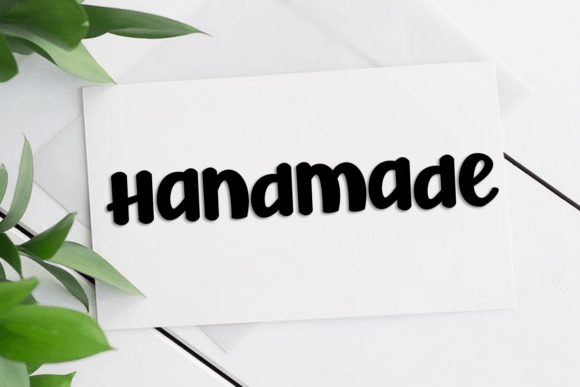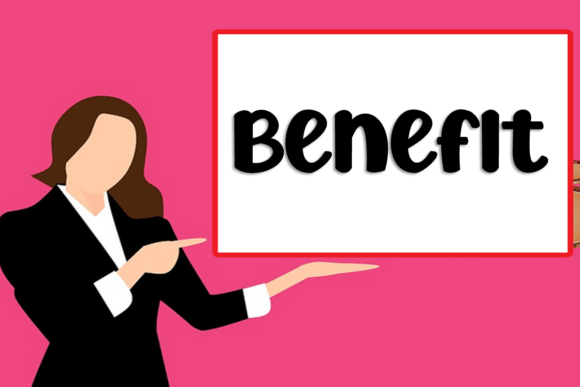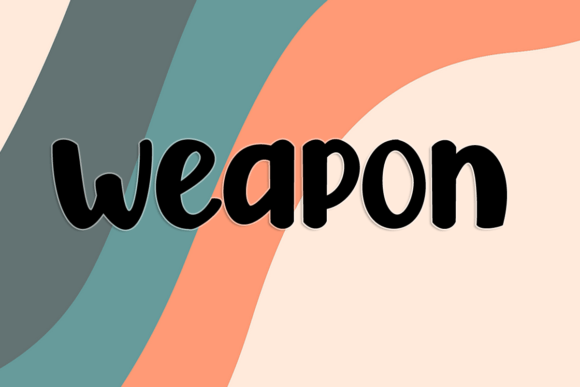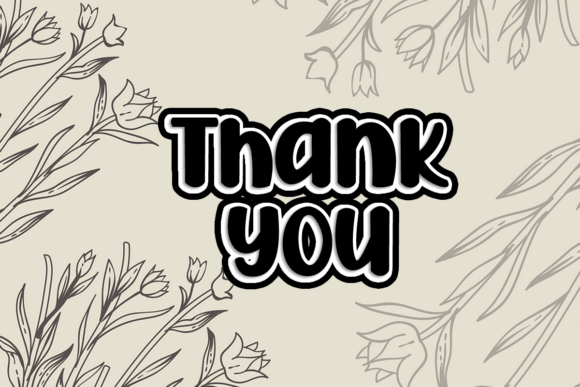
Introducing Happy Morning Font: The Perfect Addition to Your Design Arsenal
Are you tired of using the same old fonts for your projects? Do you want to add a touch of personality and whimsy to your designs? Look no further than Happy Morning Font, a fun and friendly handwritten font that’s perfect for crafters and designers alike. With its incredibly distinct and timeless style, Happy Morning Font is sure to fall into your heart and become a staple in your design toolkit.
The Story Behind Happy Morning Font
Happy Morning Font is a carefully crafted handwritten font that’s designed to bring a smile to your face. Its creator, [font designer name], aimed to create a font that’s both playful and elegant, making it perfect for a wide range of projects, from creative crafts to digital designs. With Happy Morning Font, you can add a personal touch to your work and make it stand out from the crowd.
What Makes Happy Morning Font So Special?
So, what sets Happy Morning Font apart from other fonts out there? Here are just a few of its unique features:
- Handwritten with love: Happy Morning Font is carefully handwritten with attention to detail, giving it a personal and authentic feel.
- Distinctive style: The font’s unique style is both timeless and trendy, making it perfect for a wide range of projects.
- Easy to read: Despite its playful nature, Happy Morning Font is incredibly easy to read, making it perfect for body text and headings.
- Versatile: Happy Morning Font can be used for a wide range of projects, from digital designs to craft projects, and everything in between.
How to Use Happy Morning Font in Your Projects
Now that you’re excited about Happy Morning Font, let’s talk about how to use it in your projects. Here are a few ideas to get you started:
- Digital designs: Use Happy Morning Font in your digital designs, such as social media graphics, blog posts, and email newsletters.
- Craft projects: Add a personal touch to your craft projects, such as handmade cards, scrapbooking, and DIY decorations.
- Branding: Use Happy Morning Font as a display font for your brand’s logo, or as a body font for your website and marketing materials.
- Sign making: Create eye-catching signs for your business or home using Happy Morning Font.
Tips and Tricks for Working with Happy Morning Font
Here are a few tips and tricks to help you get the most out of Happy Morning Font:
- Experiment with colors: Happy Morning Font looks great in a variety of colors, so don’t be afraid to experiment and find the perfect hue for your project.
- Mix and match: Combine Happy Morning Font with other fonts to create a unique and eye-catching design.
- Play with sizes: Use Happy Morning Font in a variety of sizes to create visual interest and hierarchy in your design.
In conclusion, Happy Morning Font is a fun and friendly handwritten font that’s perfect for designers and crafters alike. With its incredibly distinct and timeless style, Happy Morning Font is sure to become a staple in your design toolkit. Whether you’re working on digital designs, craft projects, or branding materials, Happy Morning Font is the perfect addition to your design arsenal. So why wait? Fall in love with Happy Morning Font today and start creating spectacular designs!